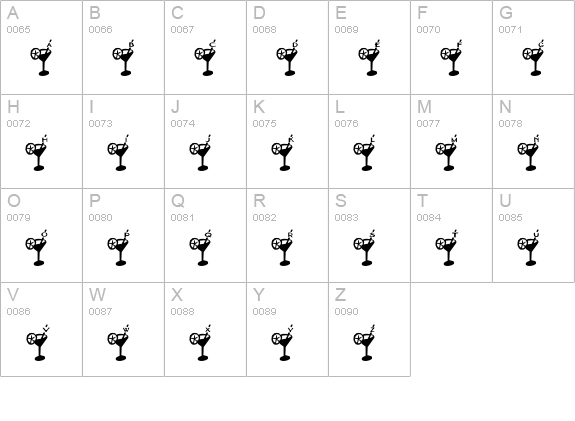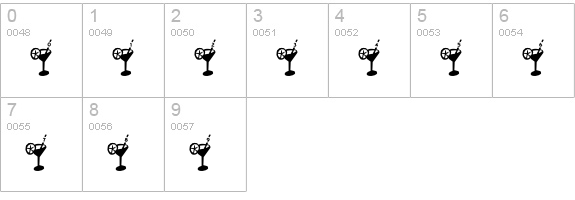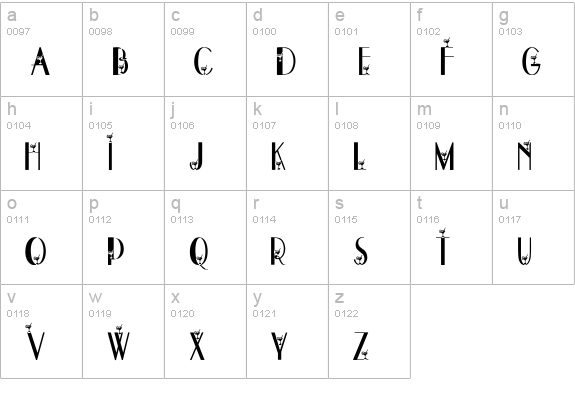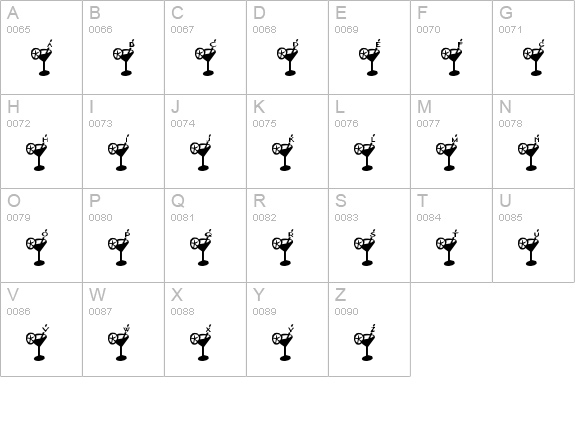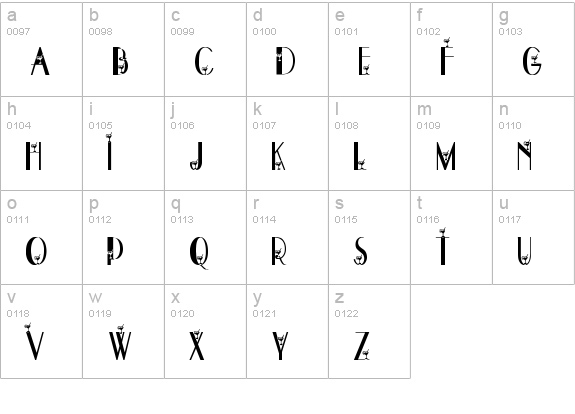
Dry Martini font exudes elegance and sophistication with its sleek and stylish design. Its clean lines and sharp angles give it a modern and timeless appeal, making it perfect for a wide range of design projects. This versatile font is ideal for creating eye-catching logos, branding materials, invitations, and more. What sets Dry Martini font apart is not only its striking aesthetic but also its accessibility. This premium font is available for free download at FontsMarket.com, allowing designers and creatives to elevate their work without breaking the bank. With its high-quality design and ease of use, Dry Martini font is a must-have addition to any designer's toolkit.